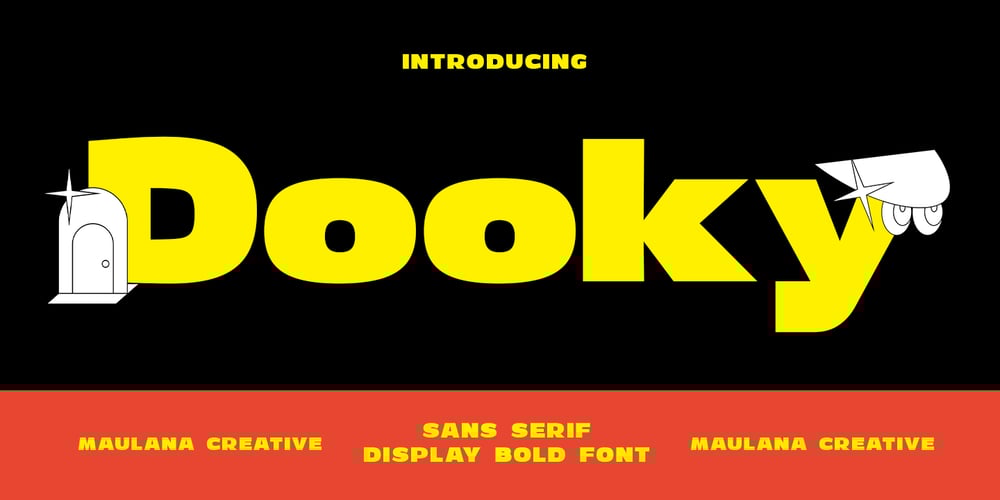
MC Dooky Font Family was designed by Gilang Maulana and published by Maulana Creative. MC Dooky contains 1 styles and family package options. Dooky is a Quirky 90’s vibe Display Sans font. Wide Heavy stroke, fun character with a bit of ligatures and alternates. To give you an extra creative work. Dooky font support multilingual more than 100+ language. This font is good for logo design, Social media, Movie Titles, Books Titles, a short text even a long text letter and good for your secondary text font with script or serif. Make a stunning work with Dooky font. Cheers, Maulana Creative